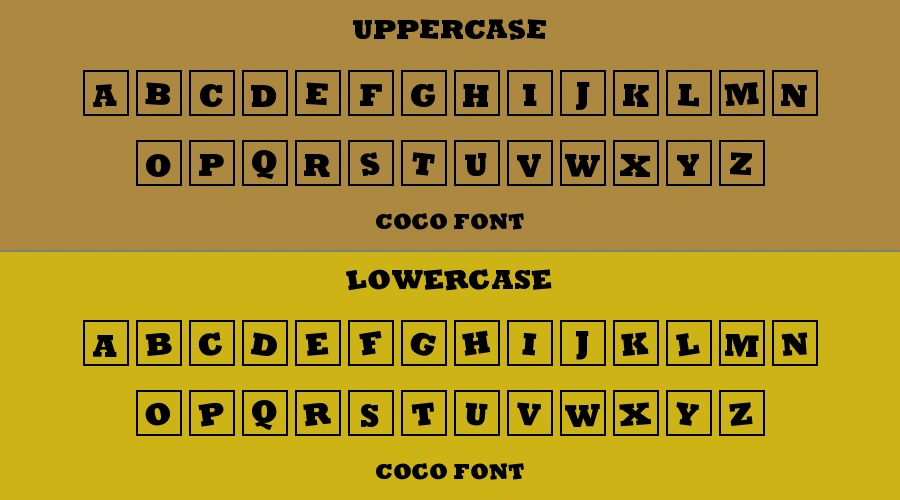
About Coco Font
Coco Font stands out for its distinctive combination of impactful forms and technical excellence. Ideal for annual reports, it provides the durability and design heritage that professional projects demand. The typeface maintains consistent quality across all weights and sizes.
Key features include refined ligatures and practical proportional figures, enhancing typographic expression. In marketing collateral applications, Coco Font demonstrates exceptional small cap rendering. The ear placement and cultural resonance contribute to its distinctive character and professional appeal.